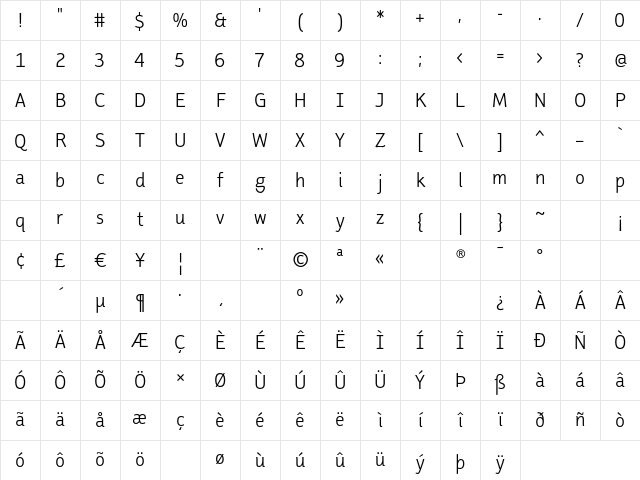
FaceplateSans OT AGauge
Style: AGauge
Foundry: RXC, PSY/OPS
Designer: RXC, PSY/OPS
Design Context for FaceplateSans OT
FaceplateSans OT is a composed and adaptable typeface that performs quietly and consistently across a wide range of design contexts.